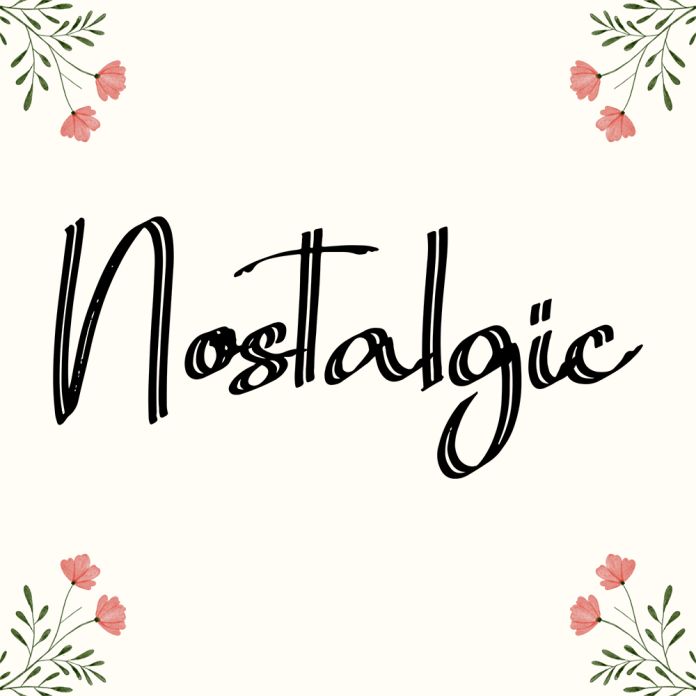
Nostalgic is a stylish modern calligraphy font with a casual chic flair. It is perfect for branding, wedding invites, and cards, and maybe for red wine labels. This font is PUA encoded, which means you can easily access all of the glyphs and swashes!